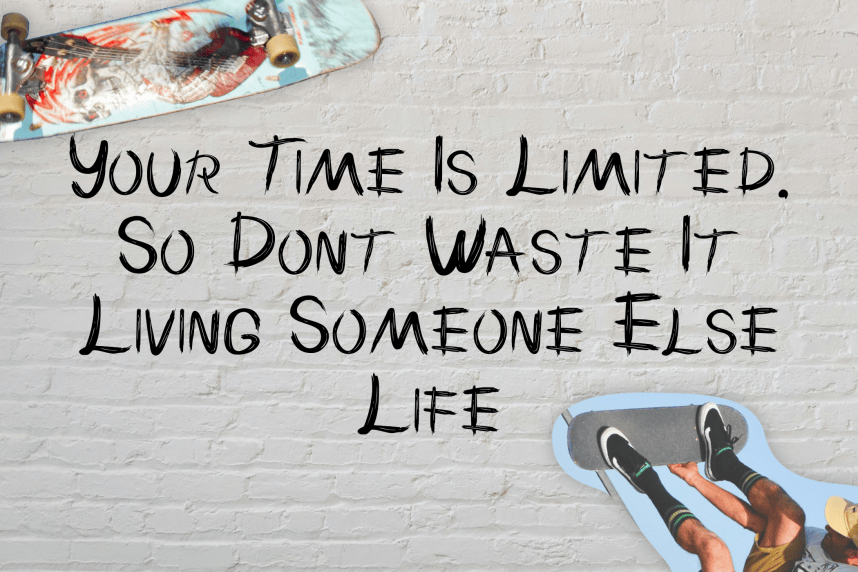
Lolita Brush Font – brush-style graffiti font that blends artistic freedom with street attitude. Great for wall art, skate culture, streetwear branding, and any design aiming for a cool, expressive, youth-driven look.